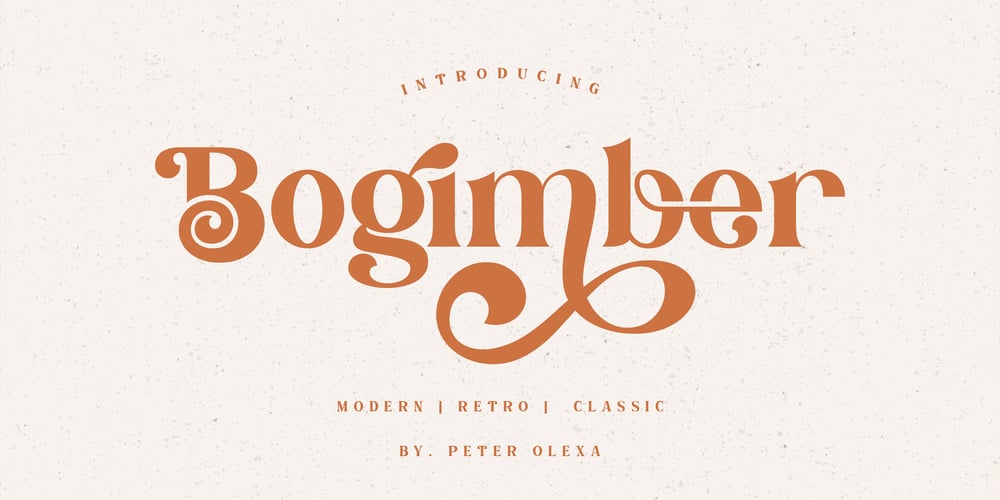
Bogimber
Bogimber font
Bogimber Font Family was designed by Peter Olexa and published by Deeezy. Bogimber contains 1 styles and family package options. Trendy, elegant, artistic, luxury, retro & modern style serif font for your fancy projects. Elegant, fashion and playful style on Bogimber font will be great for any branding project. Lot of alternates and ligatures will help you to create unique and original logo design or website header! Enjoy :)-Multilingual support-Lot of alternate characters-Lot of ligatures-Great for modern branding projects!